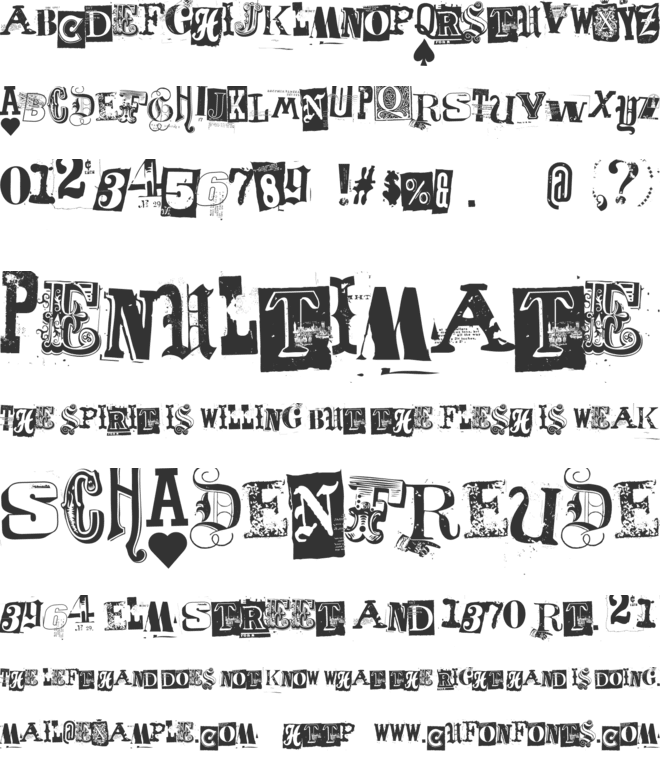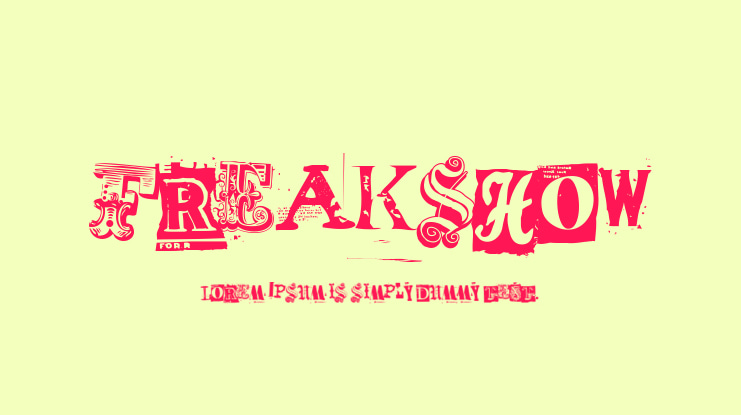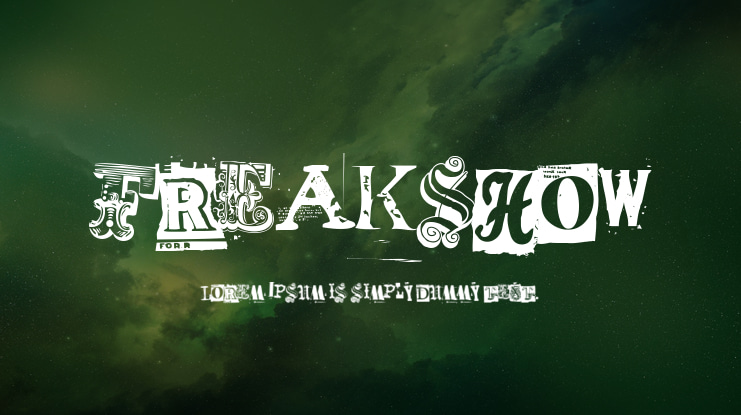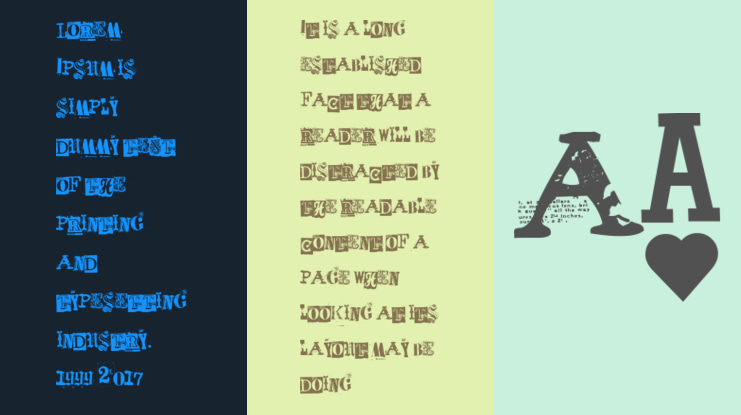
Come one! Come all! Enter at your own risk! Freakshow is a whimsical kaleidoscope of lettering whose likeness is sure to SHOCK the entire family. This unique display font will have you think old newspapers were shredded by a lawnmower and used for a ransom note. Inspiration was years in the making with some individuals letters and graphics emulated from ads and publications long ago. Different styles such as script, eroded, medieval, and vintage collide with modern looking characters in a haphazardly fashion that will spill your popcorn onto the ground in awe. Try a combination of uppercase/lowercase to avoid letter repetition and do explore the bonus alternates if your program supports OTF features. Only basic latin and punctuation are included. Other languages, diacritics, accents, and other letters can be added for a fee so email me if interested. Make sure your next project or poster is center stage with a ticket to the Freakshow!